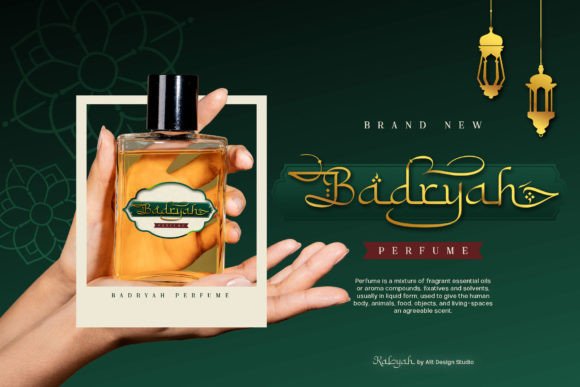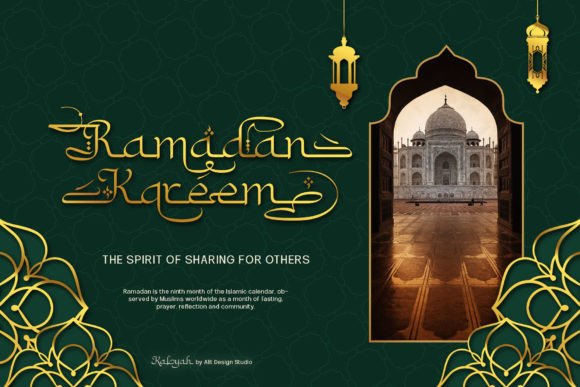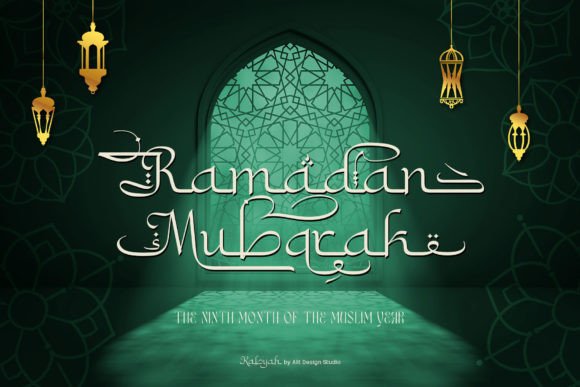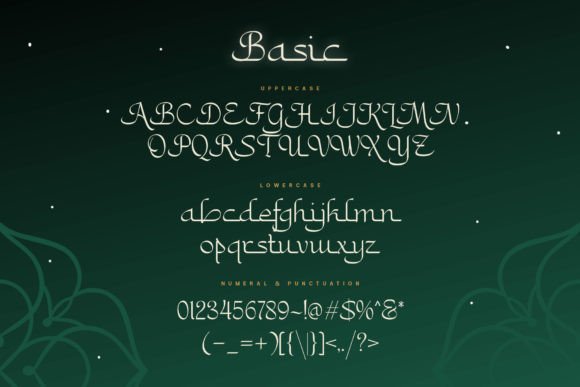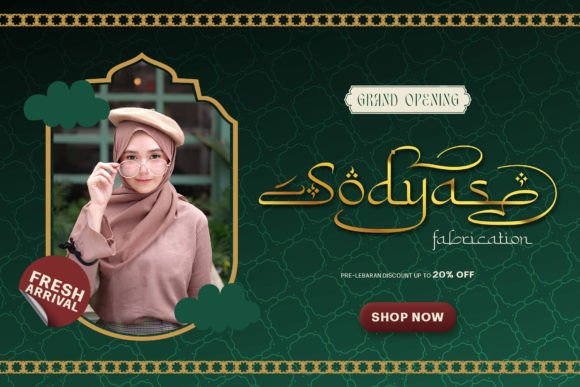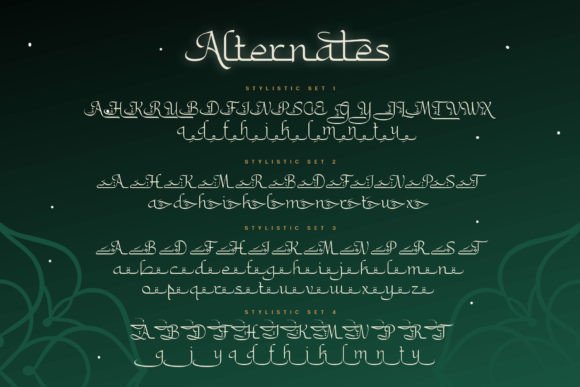
Introduction to Kabyah Font
Have you ever been stuck in a creative rut, searching for the perfect font to elevate your design project? I know I have. One moment that stands out in my mind was when I stumbled upon the Kabyah Font – a stunning Indian-style script font that left me breathless. Its intricate detailing and elegant curves transported me to a world of Eastern elegance, and I knew I had to learn more.
As a designer, I can attest to the value of having a reliable design resource like the Kabyah Font in your toolkit. With its high-quality glyphs and ligatures, this font is perfect for branding, invitations, and editorial layouts. Plus, its transparent background makes it easy to use and customize. And the best part? You can download the Kabyah Font for free, making it an invaluable asset for any creative project.
Key Features of Kabyah Font
- High-quality design resource with a unique, creative touch, ideal for various design projects.
- Comes with a transparent background, allowing for seamless integration with any design element.
- Features a high-resolution design, ensuring crisp and clear text display even at larger sizes.
- Designed to be highly legible, making it perfect for body text, headings, and titles in creative projects.
- Can be easily customized to fit the specific needs of your design project, with a range of font sizes and styles available.
Honest Review: Kabyah Font
As a designer, I’m always on the lookout for high-quality design resources to enhance my creative projects. Recently, I stumbled upon the Kabyah Font, and I’m excited to share my honest review with you.
What works well: ✨ The Kabyah Font has a unique and elegant design that’s perfect for creative projects that require a touch of sophistication. The font’s high-quality glyphs and seamless integration with various design software make it a valuable addition to any design arsenal. Additionally, the font’s transparent background allows for easy customization and flexibility in design.
What doesn’t work well: ⚠️ One limitation of the Kabyah Font is its limited character set. While the font is suitable for general use, it may not be ideal for projects that require a wide range of special characters or languages. Another limitation is the font’s lack of bold and italic styles, which can be a drawback for designers who prefer a more versatile font.
Overall impression: The Kabyah Font is a solid addition to any design library. Its unique design and high-quality glyphs make it a great choice for creative projects that require a touch of elegance. While it may have some limitations, the font’s free download and seamless integration with design software make it a valuable resource for designers.
- Unique and elegant design
- High-quality glyphs
- Seamless integration with design software
Tips for Getting the Most Out of Kabyah Font
For the best results, use the Kabyah Font on a high-quality background image or a transparent background. This will allow the font to stand out and add a professional touch to your design project.
The Kabyah Font is suitable for a wide range of creative projects, including logos, business cards, posters, and social media graphics. Its unique design and transparent background feature make it an ideal choice for designers looking for a high-quality and versatile font.